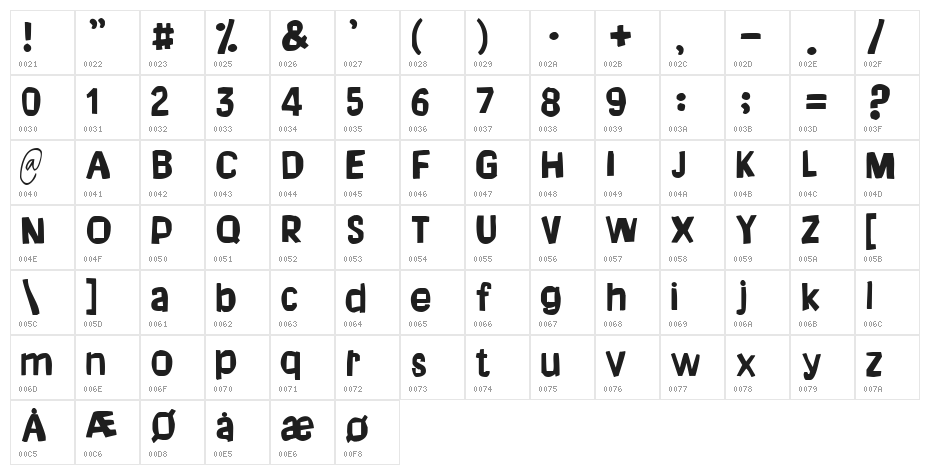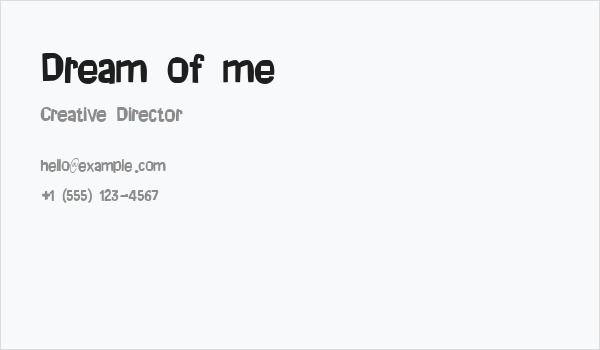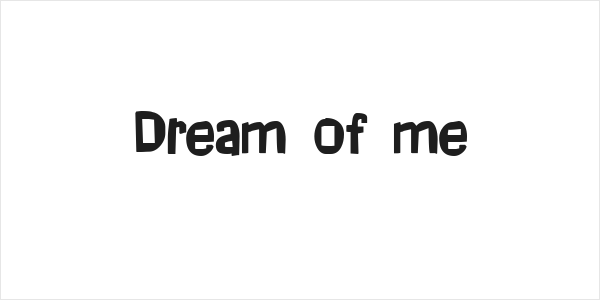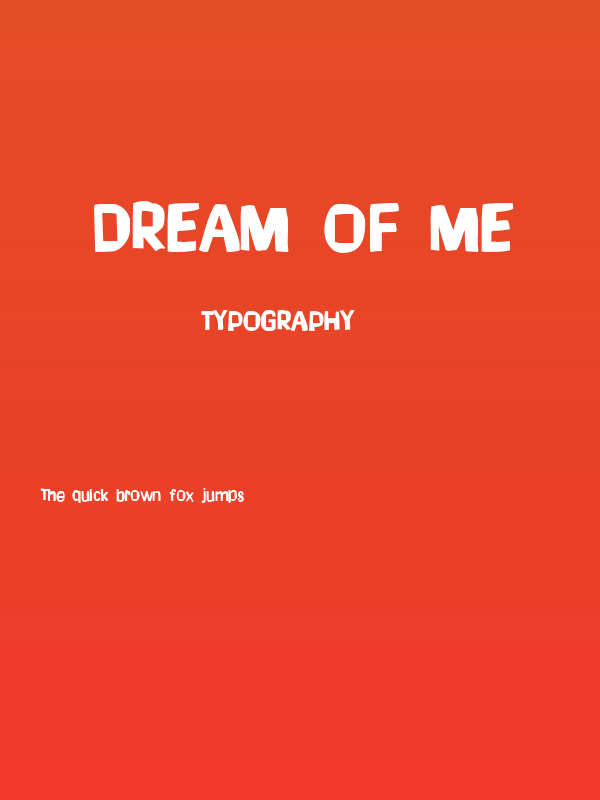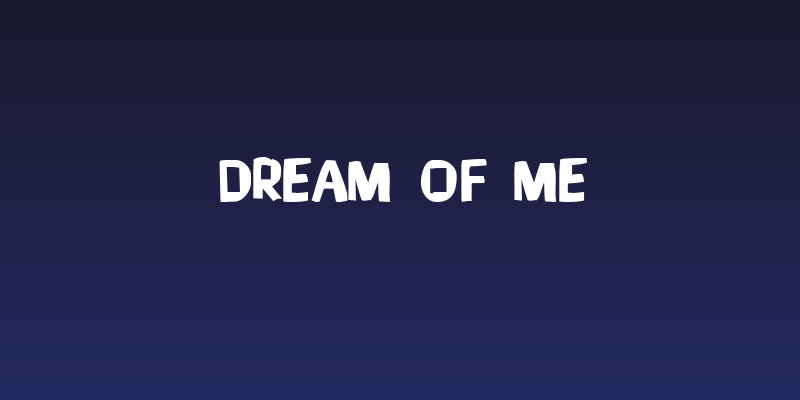
Dream of me Font
Dream of me Description
This font features a bold and playful design with a slightly irregular and hand-drawn appearance. The characters are thick and rounded, giving a friendly and approachable feel. The uppercase and lowercase letters maintain a consistent style, with the lowercase being slightly more compact. Numbers and special characters follow the same bold and whimsical design, making them stand out. The overall look is casual yet impactful, suitable for projects that require a touch of personality and creativity.
| Overall Style | Playful, Casual |
| Proposed Projects | Ideal for children's books, playful branding, posters, and creative social media graphics. |